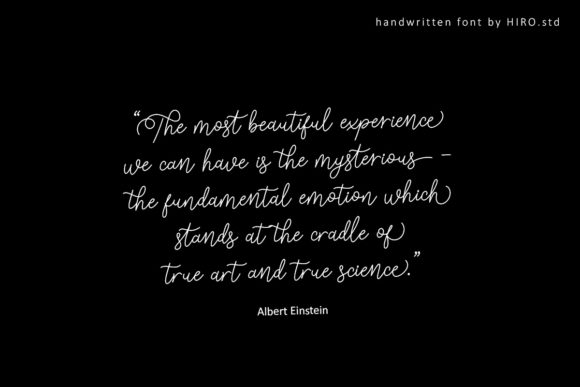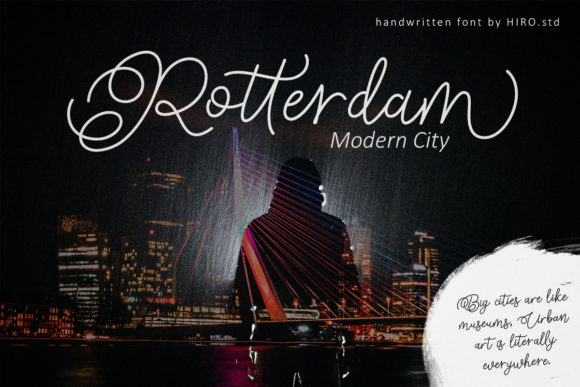
Feels so Good Font
db-ku.com - Script & Handwritten -- Feels So Good is a delicate, elegant and flowing handwritten font. It has beautiful and well balanced characters and as a result, it matches a wide pool of designs. Add it to your most creative ideas and notice how it makes them come alive!